AKL is a logo I created for Arno Karthollnig Lettering. Basically a fun little lettering project to do while enjoying a break from recent commercial deadlines.
My first logo attempt turned out OK but I had some reservations about the legibility with a close lockup of all 3 letters.
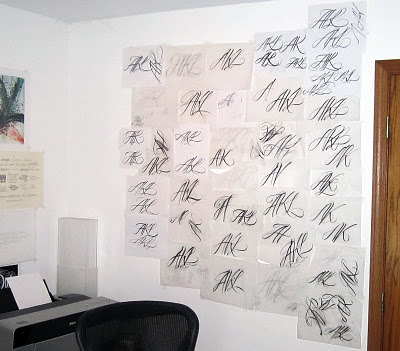
The initial sketches were studies of 3 combined letterforms A, K & L. I used a PITT brush maker and knocked out a bunch of roughs. I taped them to my office wall for review and selected several to scan and import for use as a drawing template. My intention was not to duplicate the rough letter shapes in Illustrator. The template was nothjing more than a visual reference starting point.
I posted the logo on Dribble and a fellow lettering artist commented the logo read as "AIR". At that point I thought it best to separate the K & L and redesign the piece with perhaps more elegance. I drew another rough and and started over in Illustrator. The second logo attempt turned out rather nice compared to my first effort.